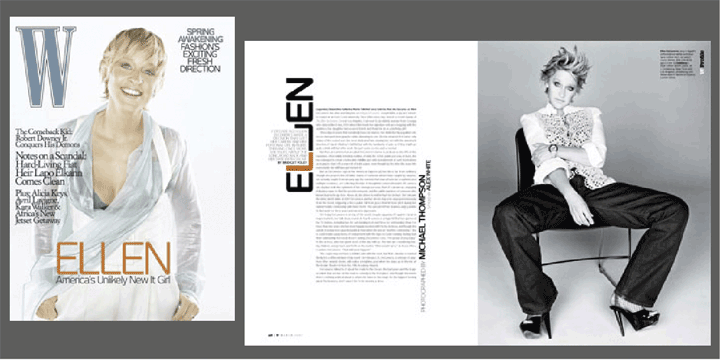
NewJune is a very strong unique character. It is already used in many magazines all over the world.
Like Harvey Nichols magazine in London and later W magazine in New York.
NewJune is the corporate typeface of the Academy of the Arts in Munich.